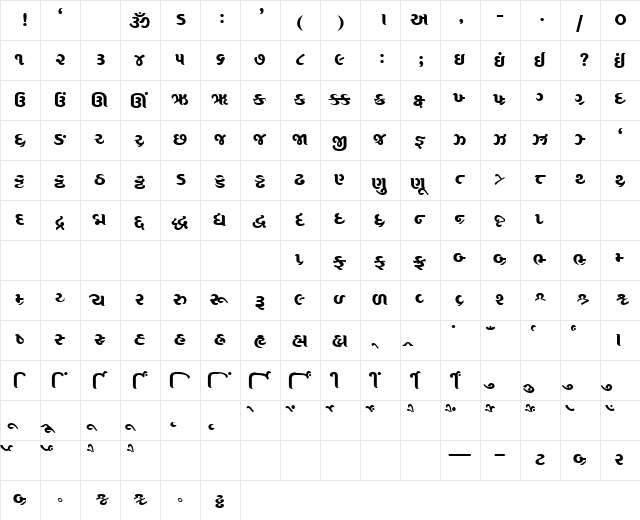
AkrutiGujChameli Bold
Design Context for AkrutiGujChameli Typeface
AkrutiGujChameli offers clean, dependable letterforms without strong stylistic allegiance, making it a practical choice for designers who need flexibility. The heavy weight commands attention and anchors typographic hierarchies.